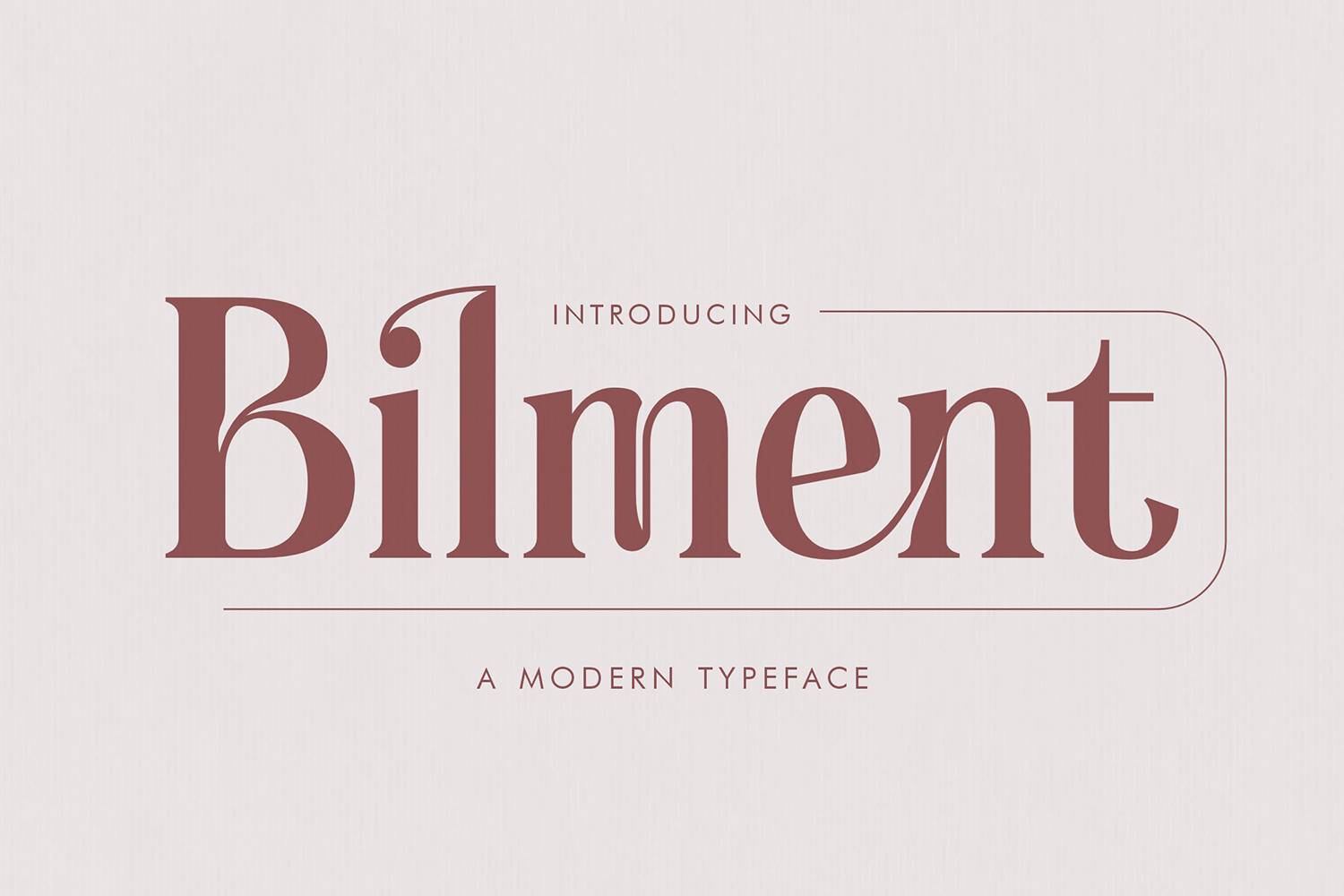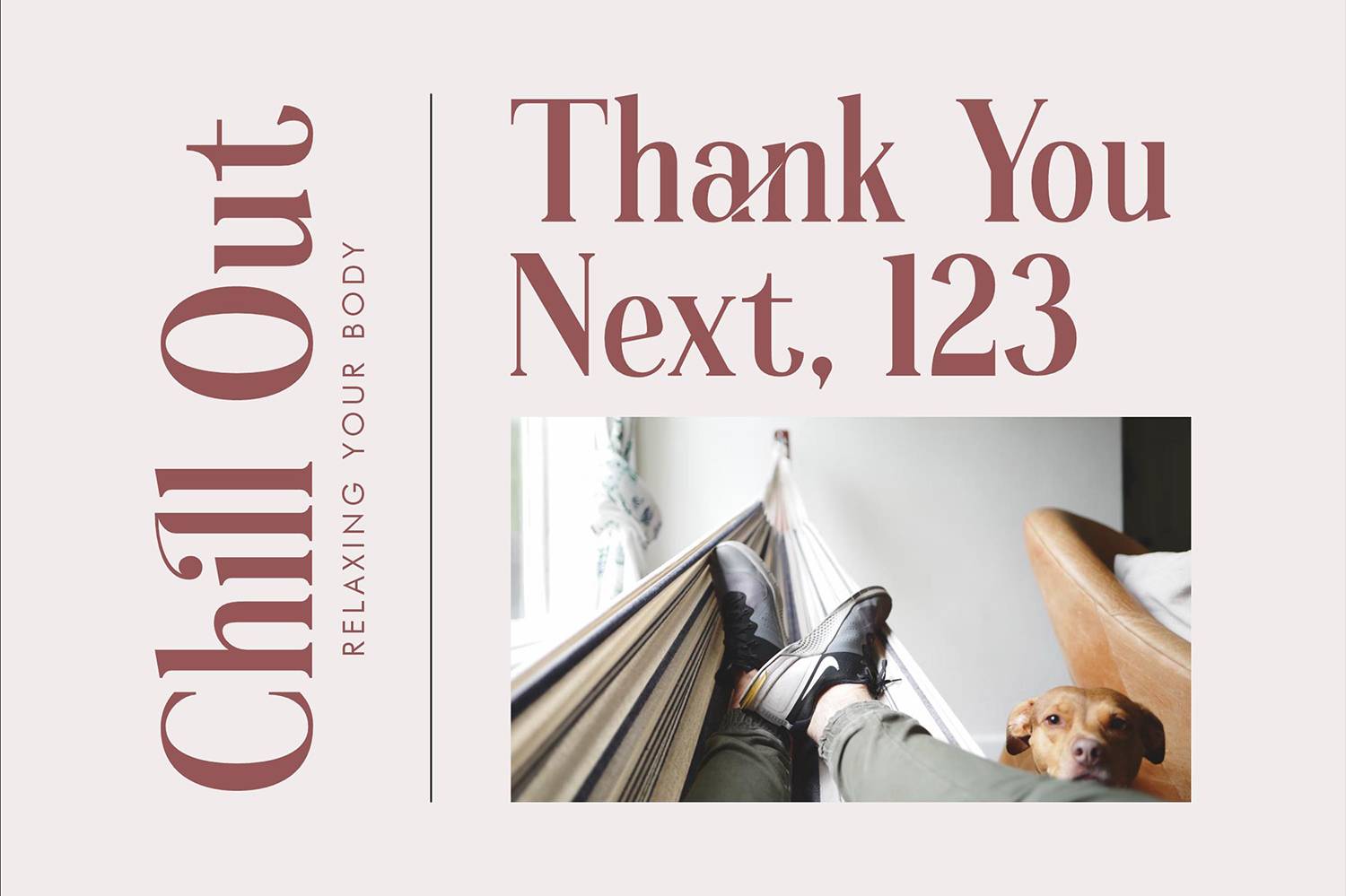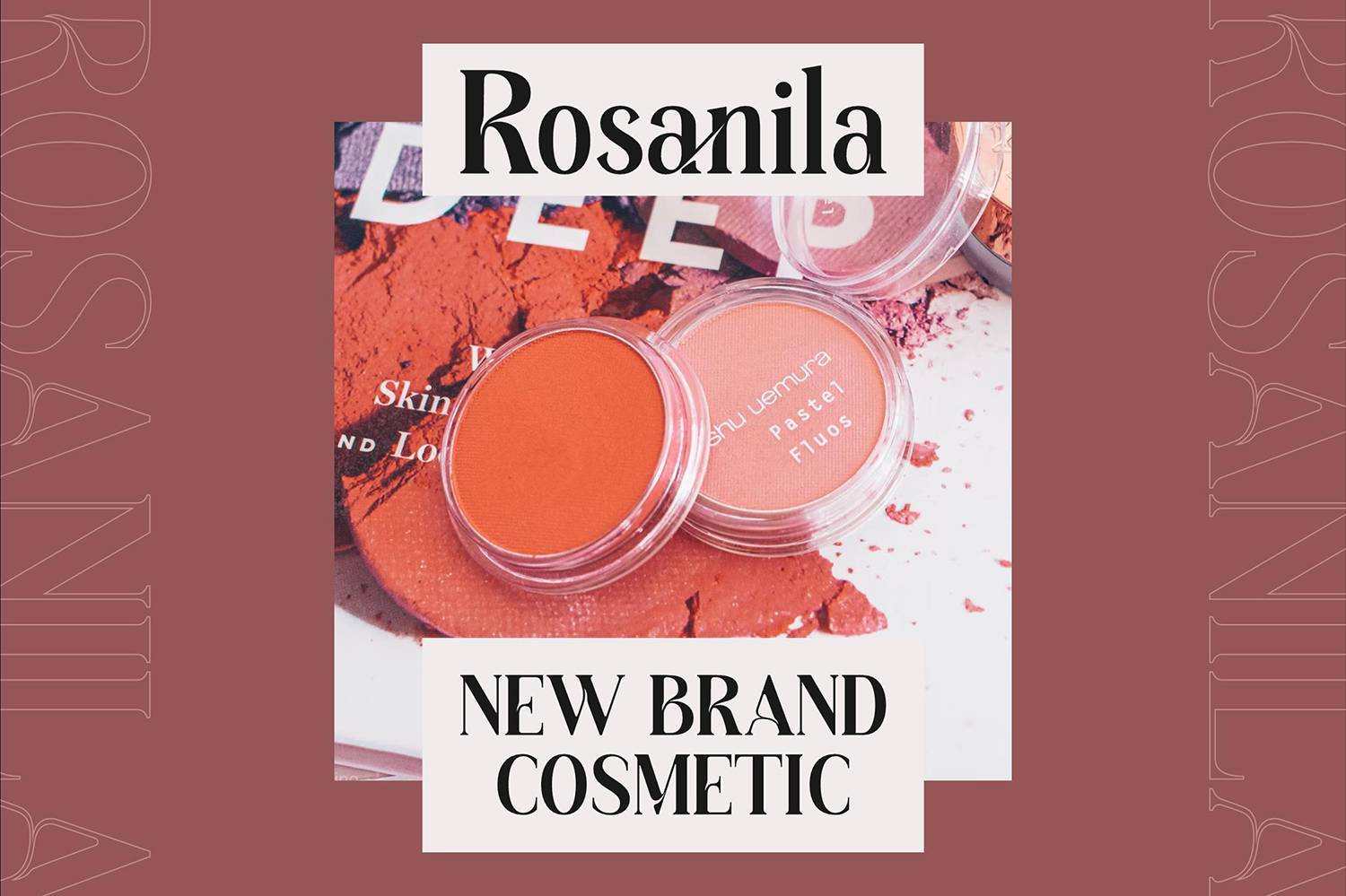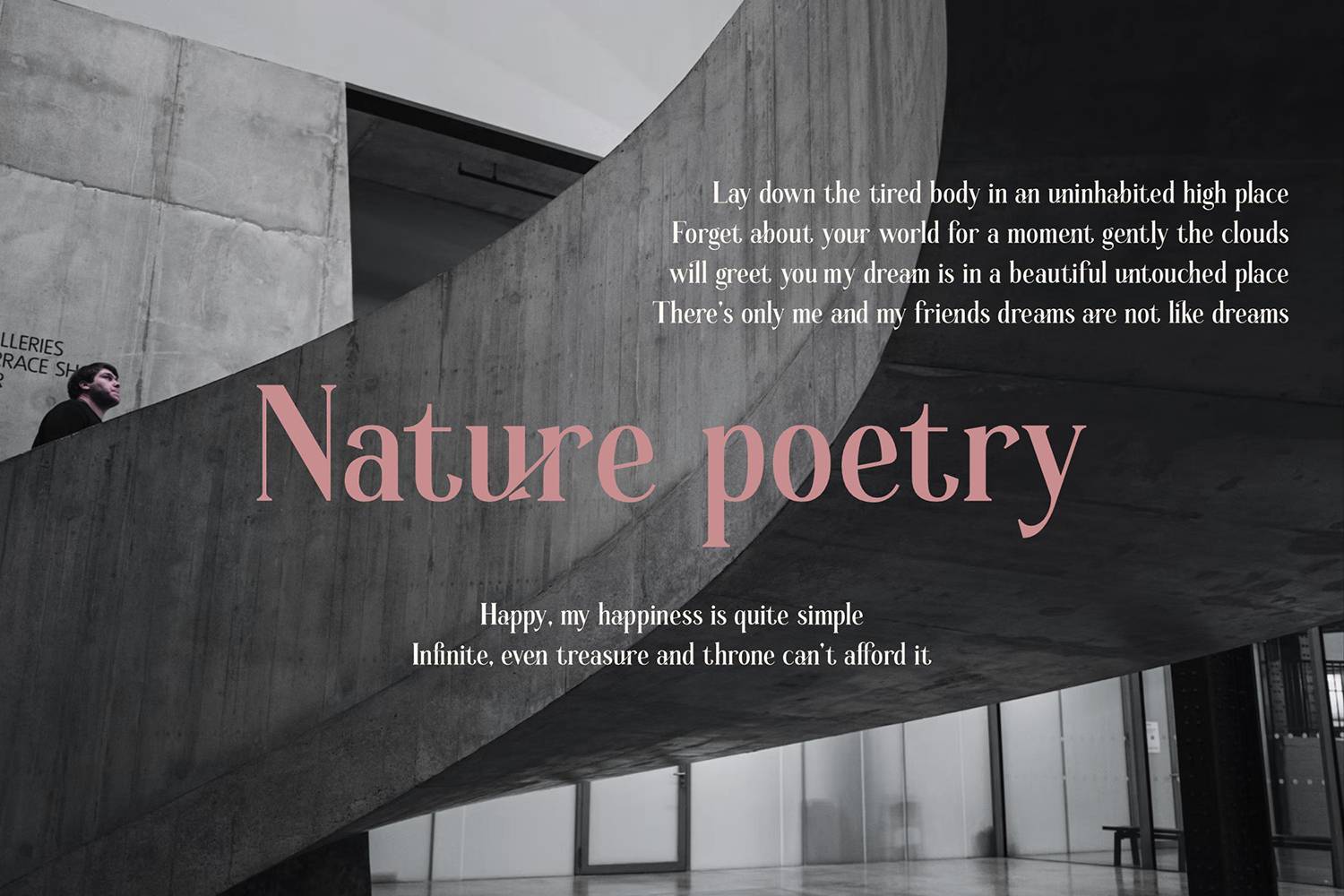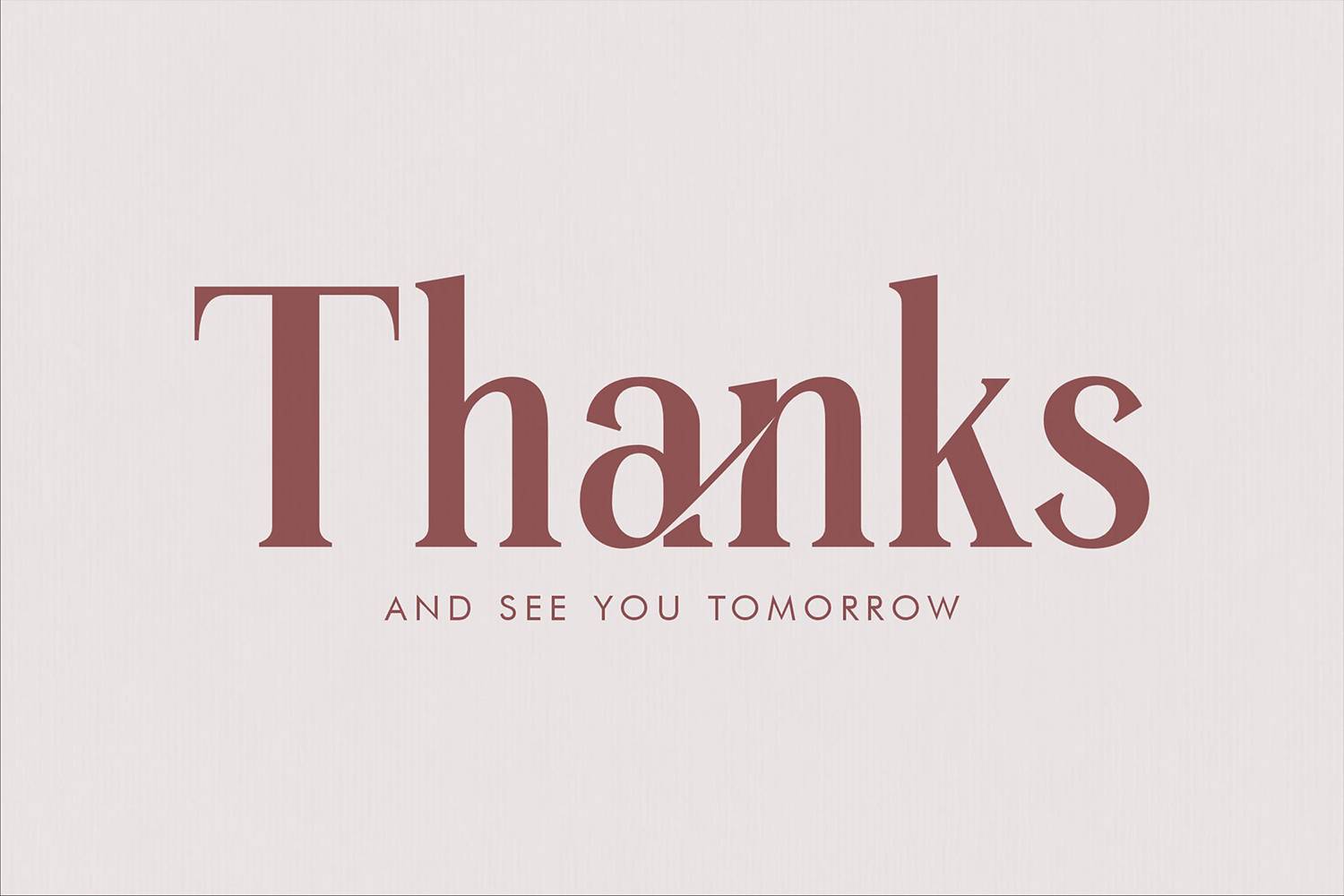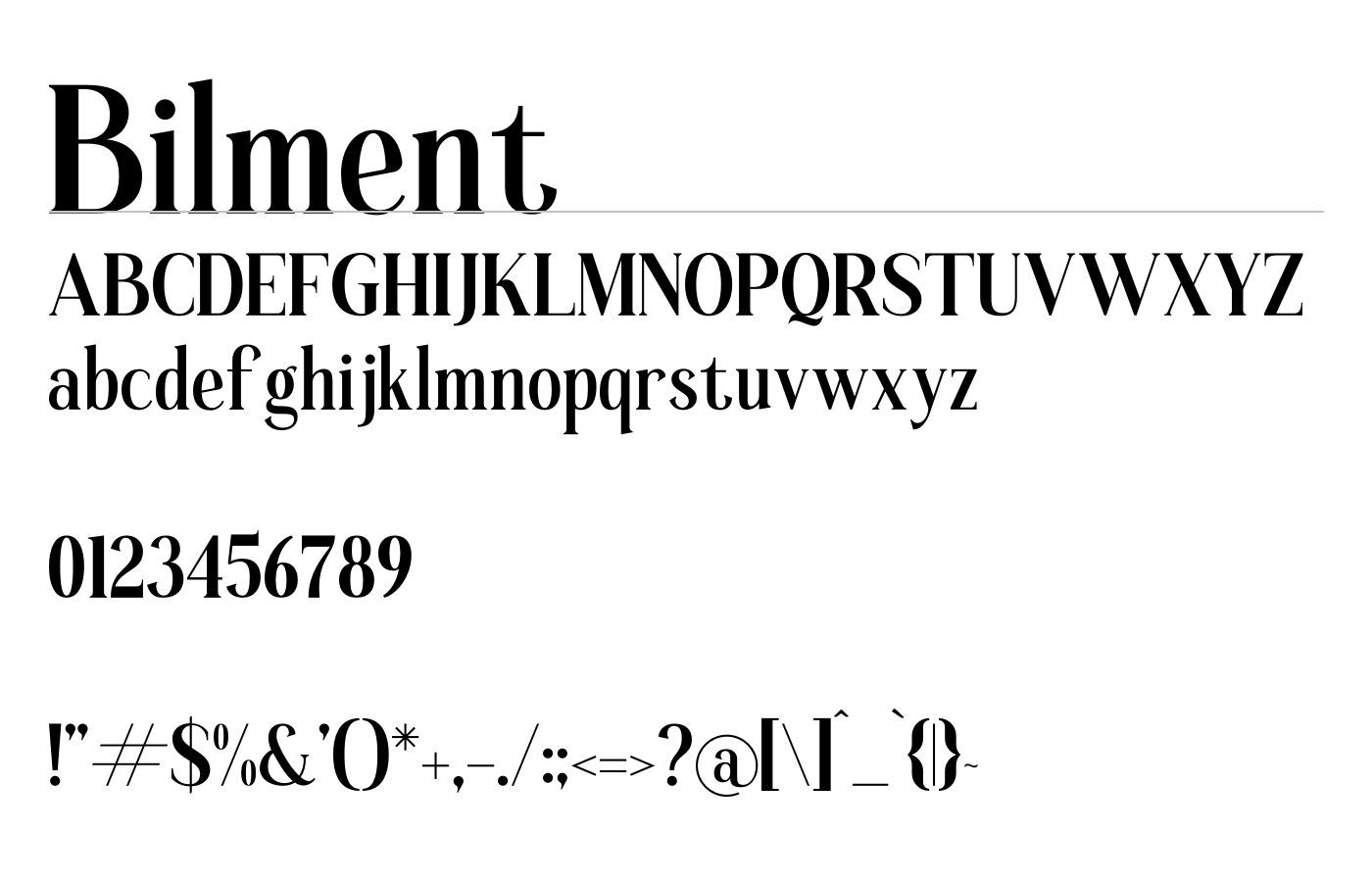
Bilment is a sophisticated serif font that combines sharp contrasts between thick and thin strokes with elegant, bracketed serifs, giving it a refined and classic appearance. Its tall, narrow letterforms and distinctive shapes make it ideal for luxury branding, editorial headlines, and stylish packaging where a touch of timeless elegance is desired. This font’s graceful yet strong personality works well in settings that require a confident, upscale impression.
Bilment Font